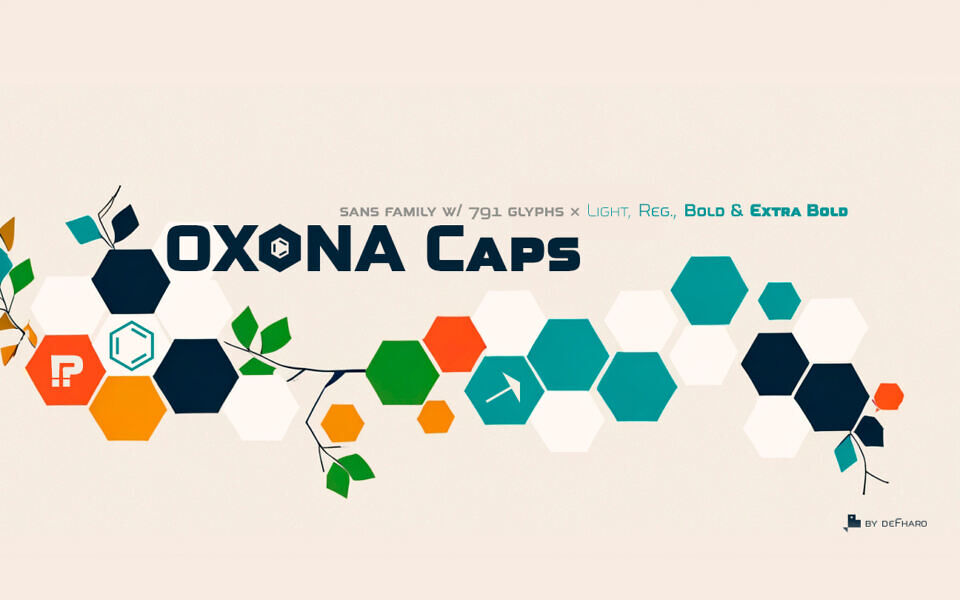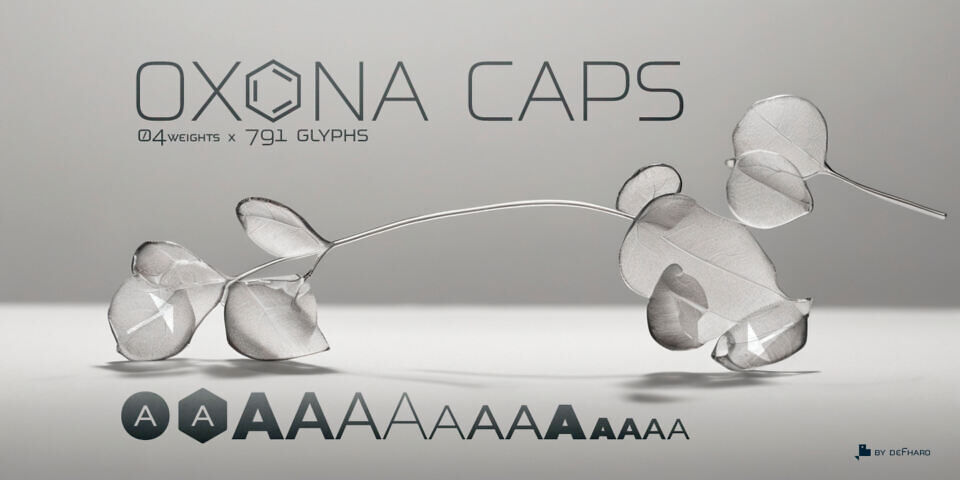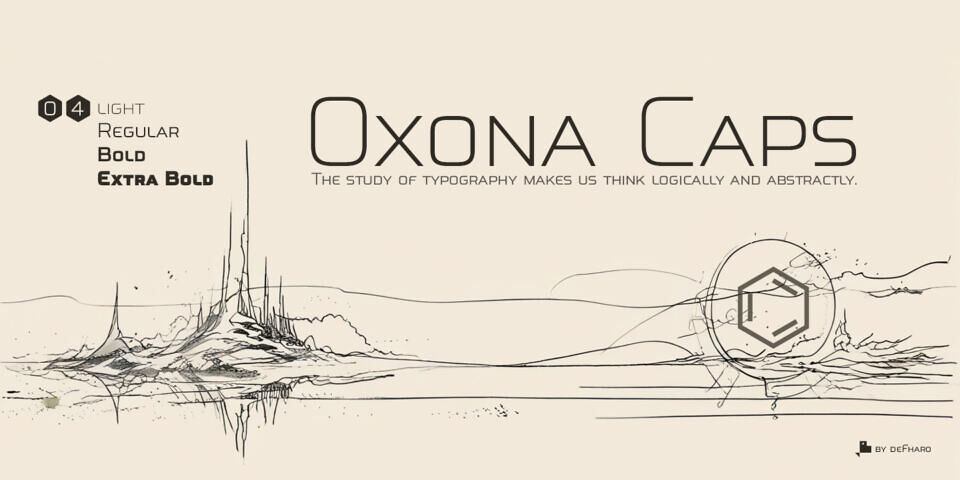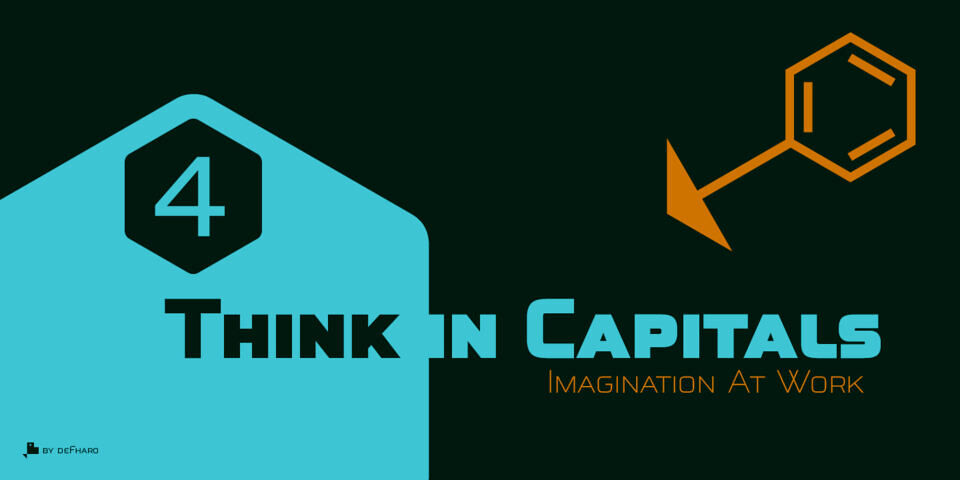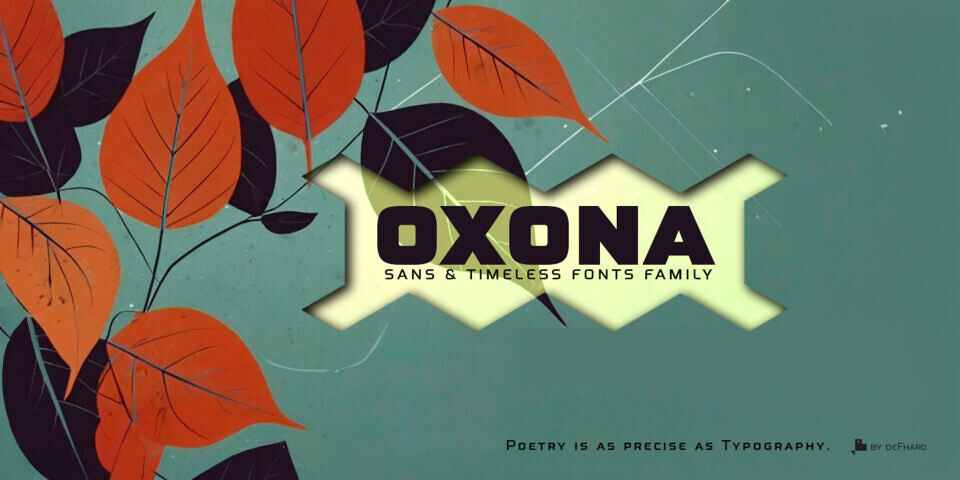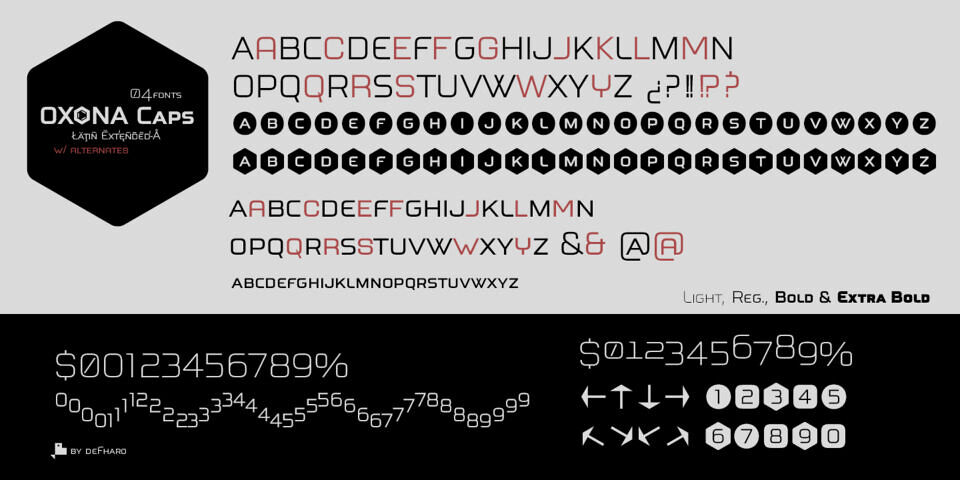
Oxona Caps is a revamped and streamlined version of the Oxona family, preserving the essence of its predecessor. It is a capital letter and small caps typeface that redefines legibility and visual impact.
This typeface retains its futuristic essence, and its geometric structure and refined optical adjustments guarantee a unique visual harmony, ideal for conveying messages with strength and elegance on any medium, whether digital or printed.